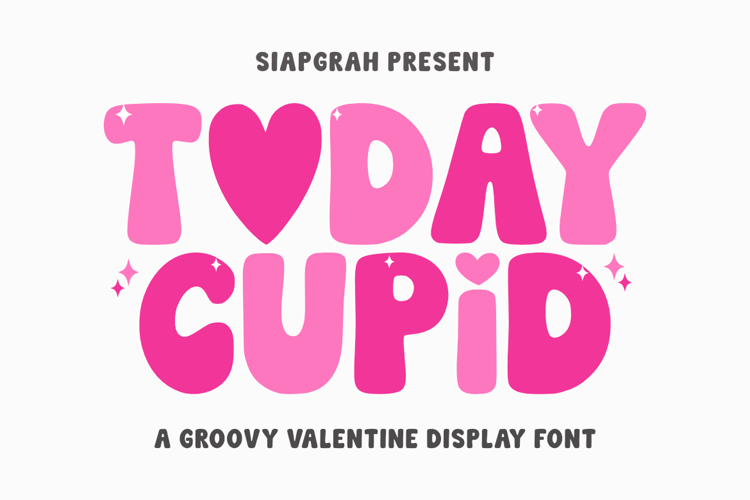
Romantic Valentines Fonts
Valentines
Valentine's Fonts: Not Just for Valentine's
These lovely romantic fonts are great for any time of the year, not just Valentine's. Just like wedding designs, these sweet fonts can work well for logos, branding, social media, marketing, advertisements, and much more.
If you're a graphic designer, crafter, or creative human in general, you can produce some incredible art using this amazing font style. Think fantastic creative projects like scrapbooking, card making, journals, paper crafts, paper cutting designs, romantic illustrations, and business branding.
Although you'll mostly find script fonts with all the lovely swirls, swashes, glyphs, and more, you can also find other styles of fonts that work amazingly well for this holiday of love. Block or slab style fonts with heart cutouts, heart fonts that use a heart for the letter I, and even Valentine dingbat fonts are ready for the picking. Find some great free Valentines fonts in our Free Valentine Fonts section to try this style on for size.
Love & Heart Fonts for Graphic Designers
A fan fave is the heart cursive font. It's the go-to font for graphic designers when creating weddings and Valentine's Day projects and designs. Some font designers have created these amazing fonts with gorgeous glyphs so that you can add a heart tail to the beginning or end of a character or connect them with a heart glyph. Sweet swashes abound with these beauties! Heart fonts can also include any font that incorporates a heart. Some options include fonts with hearts attached to the characters, hearts cut out of the letters, or a heart shape with the character inside. Plus many more! You can see that heart styles are abundant and have that sweet romantic touch without being sappy.